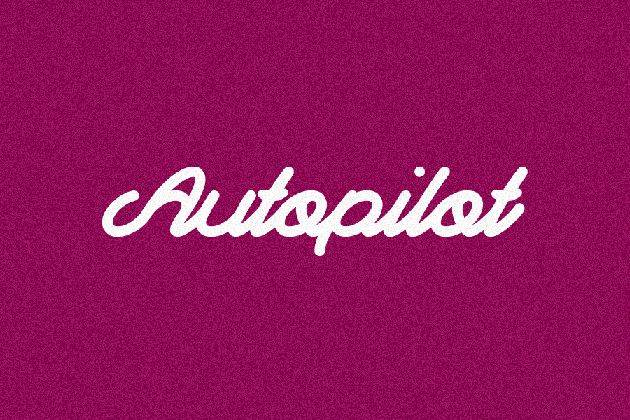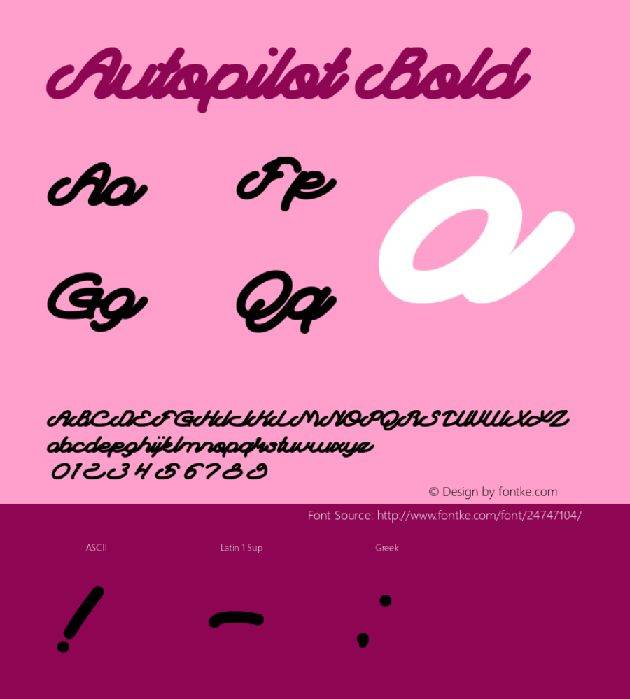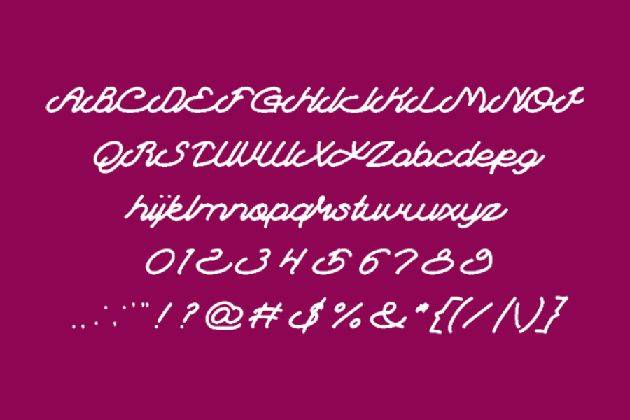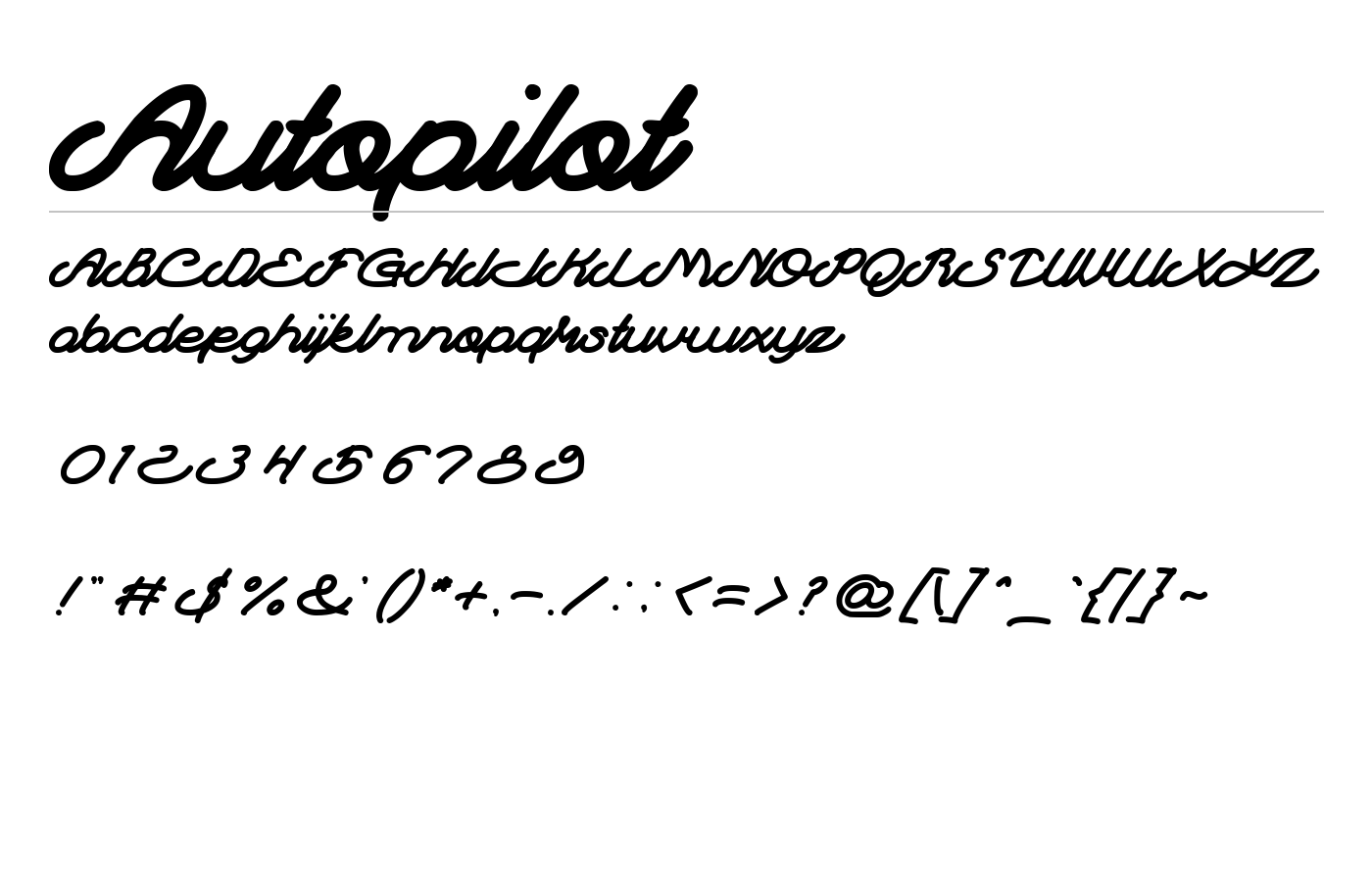
Autopilot Script Version is a lively and casual script font with smooth, connected strokes that give it a friendly, handwritten feel. Its medium weight and slightly condensed forms create a balanced look that’s both approachable and dynamic, making it perfect for informal branding, invitations, and playful headlines. This font’s energetic style communicates warmth and personality, ideal for projects seeking a personal touch with a modern twist.
Autopilot Script Version Font
About Autopilot Script Version Font
| Font family | Autopilot Script Version Font |
| Release date | 2017-12-19 |
| Designer | wino-s-kadir.d2209 |